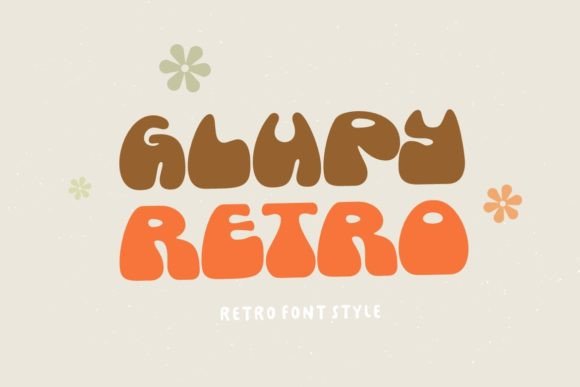
Introducing Glupy Retro Font, the ultimate display font that's sure to add a touch of nostalgia and vintage charm to your designs. This remarkable font boasts a striking contrast between its bold bottom and slender top, creating an eye-catching visual effect that will make your projects stand out from the crowd.
With its unique and captivating style, Glupy Retro is the perfect choice for a wide range of design projects. Create eye-catching logos, stickers, packaging designs, Cricut projects, headlines, and brand identities that exude a retro vibe. This versatile font also shines in t-shirt designs, posters, magazines, books, YouTube videos, Instagram posts, websites, and any other creative endeavors you can dream up.
Step into a world of design possibilities with Glupy Retro. Its carefully crafted characters and elegant lines will add a touch of vintage charm to your creations, evoking a sense of nostalgia and timeless appeal. Whether you're designing a logo, creating social media graphics, or crafting a poster for a special event, Glupy Retro will elevate your designs to new heights.
Unlock the power of expression with Glupy Retro. Its distinct style and captivating charm will make your designs resonate with audiences, leaving a lasting impression that lingers in their minds. From logotypes that command attention to social media posts that captivate, Glupy Retro is the font that will transform your creative visions into stunning realities.
Embrace the magic of Glupy Retro today and experience the joy of creating designs that speak to the soul. Let this remarkable font transport you back in time, adding a touch of vintage nostalgia to your projects that will leave audiences mesmerized. With Glupy Retro by your side, your designs will radiate with character, charm, and an unforgettable retro aesthetic.